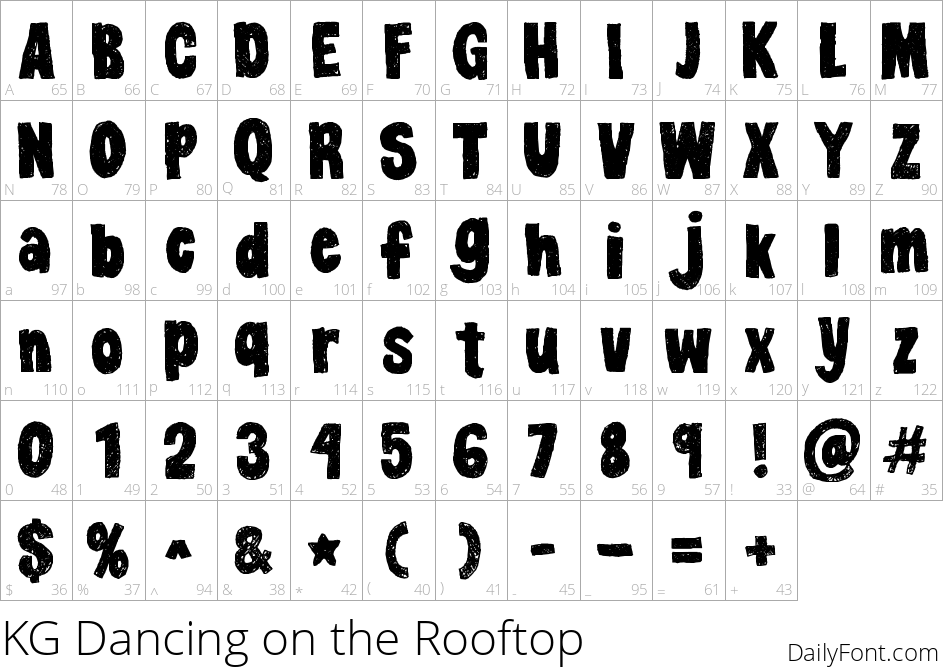
Kg Dancing On The Rooftop by Kimberly Geswein
Kg Dancing On The Rooftop is a bold handwritten font that mimics chalkboard art, making it perfect for educational materials, classroom decor, or any creative project.